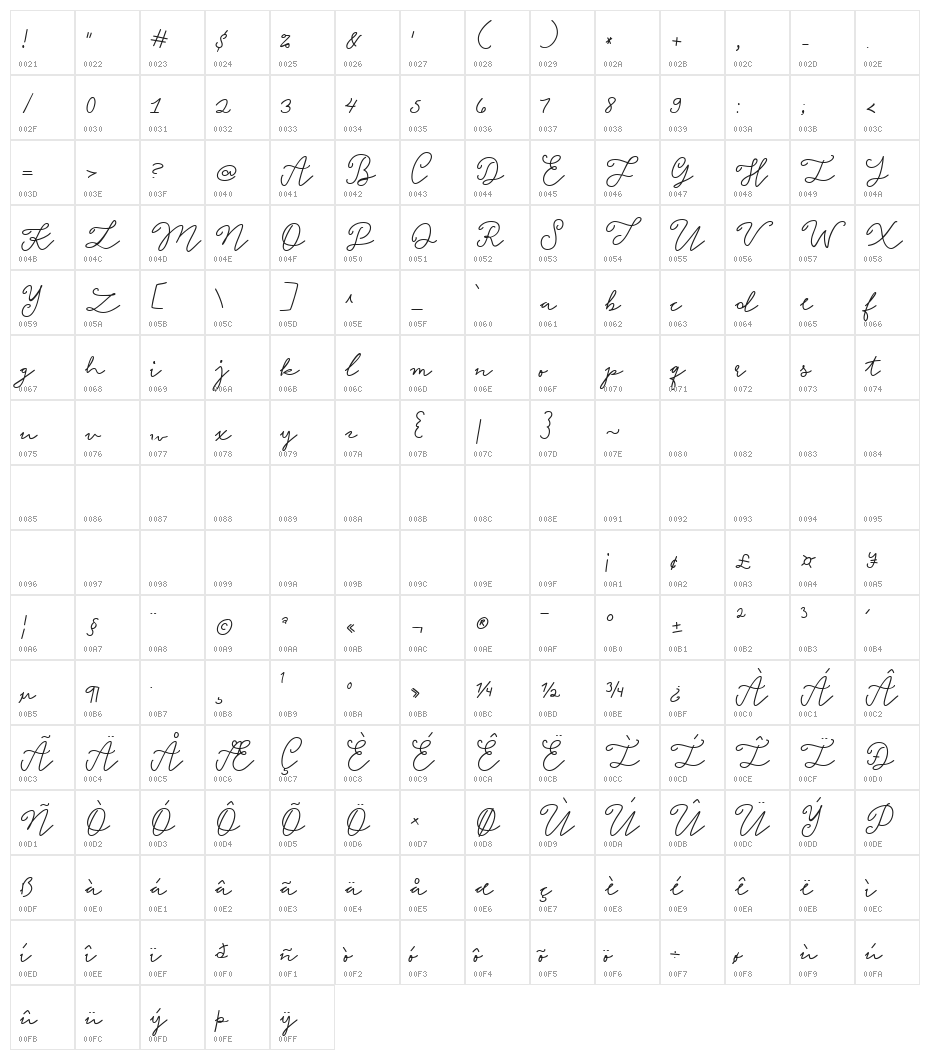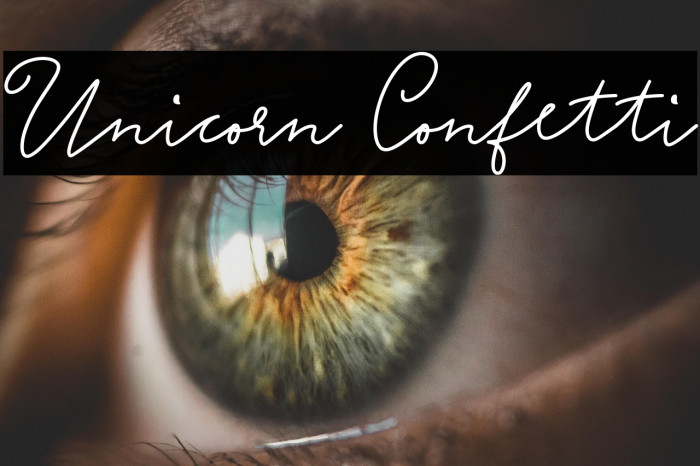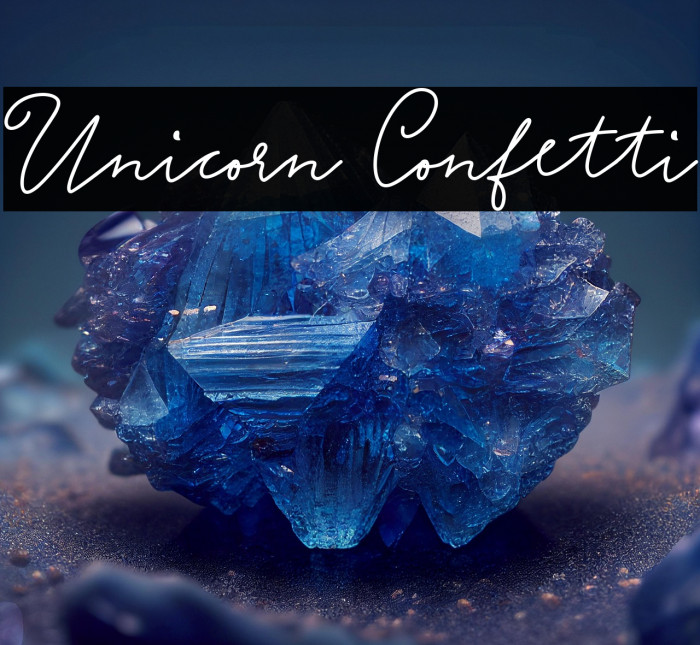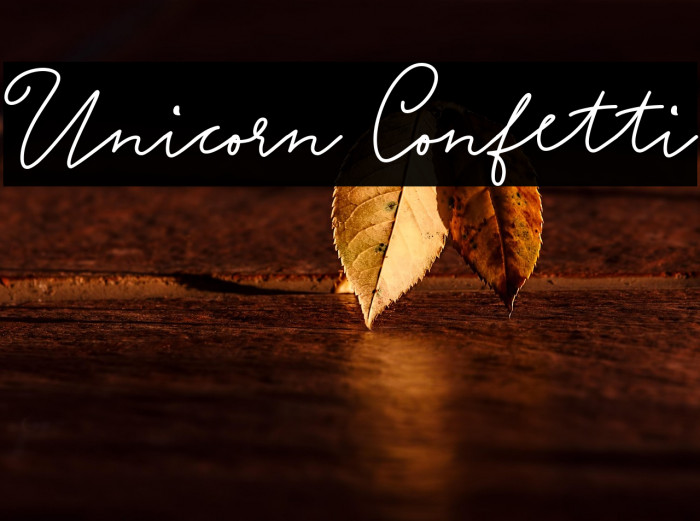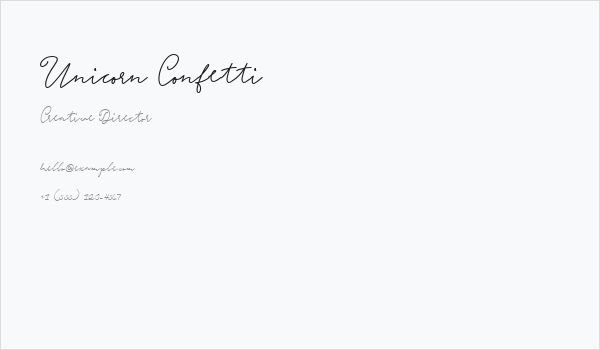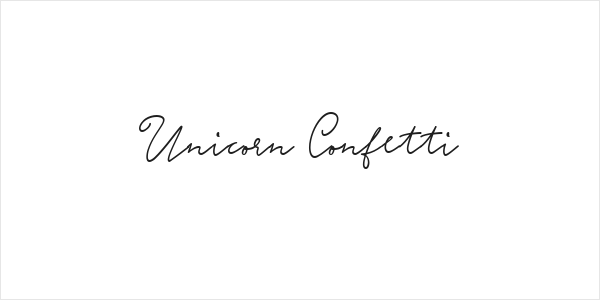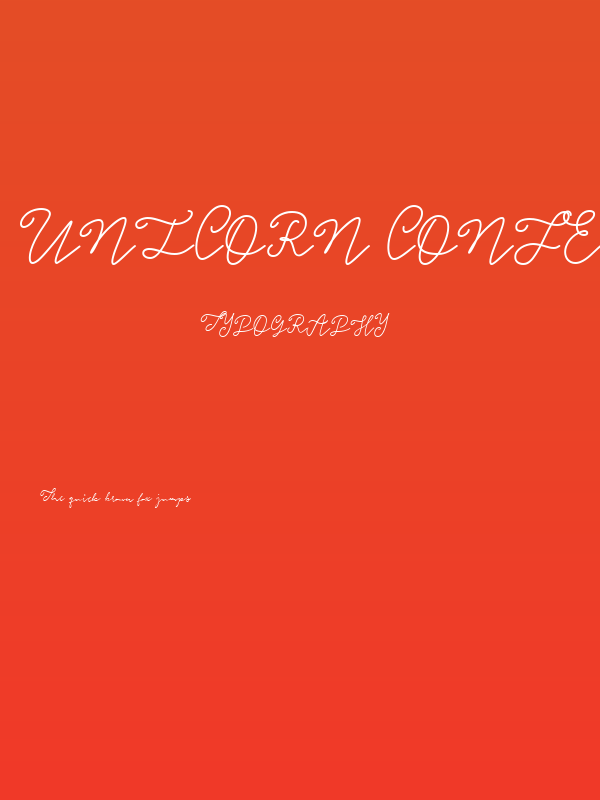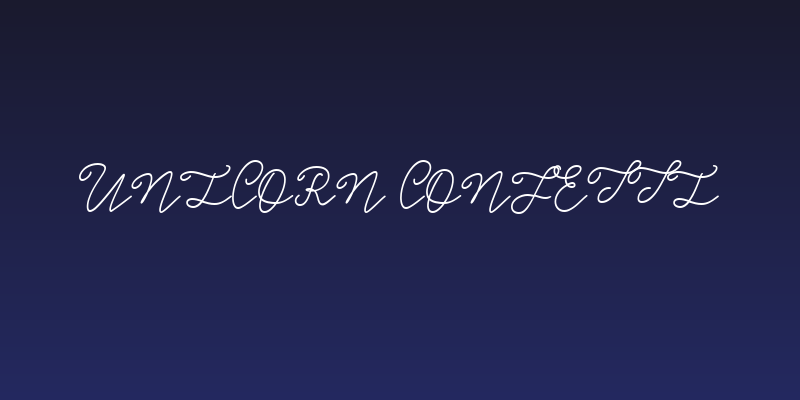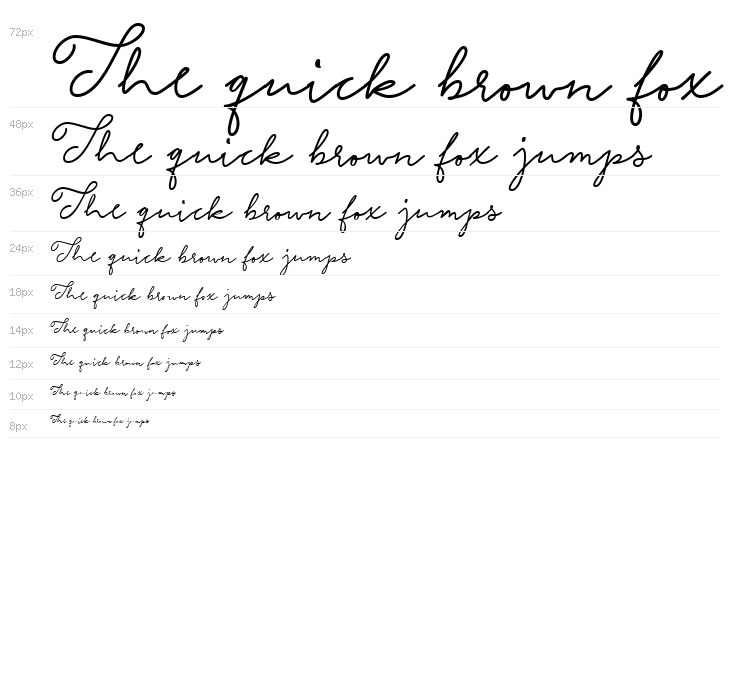
Unicorn Confetti Font
Unicorn Confetti Description
This font features a flowing, cursive style that mimics elegant handwriting. The letters are connected, creating a seamless and fluid appearance. The uppercase characters are slightly more ornate, with subtle flourishes that add a touch of sophistication. The lowercase letters maintain a consistent slant and are designed to complement the uppercase set, ensuring readability and aesthetic appeal. The numerals are clear and legible, following the same cursive style. Special characters are thoughtfully integrated, maintaining the overall cohesive look. This font exudes a sense of grace and charm, making it suitable for a variety of creative applications.
| Proposed Projects | Ideal for wedding invitations, greeting cards, personal branding, and elegant packaging designs. |